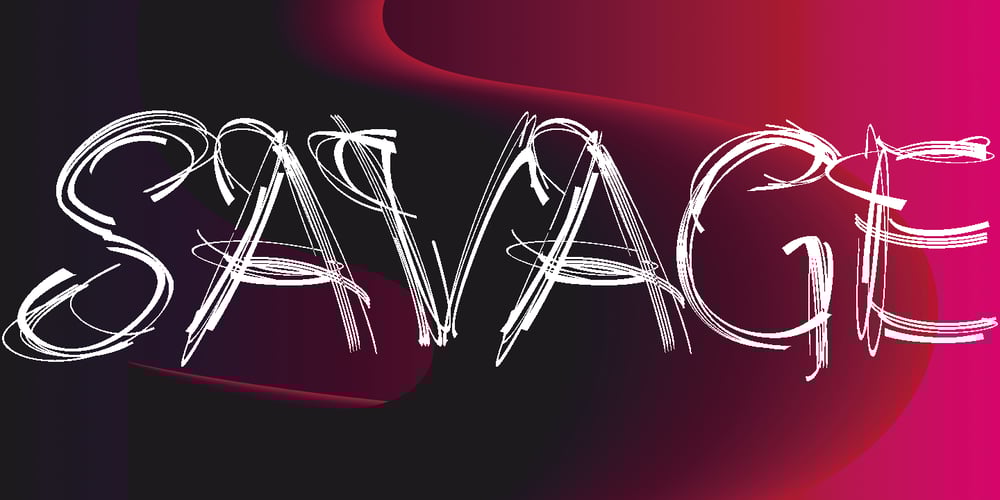
Savage Initials
Savage Initials font
Savage Initials Font Family was designed by Gert Wiescher and published by Wiescher Design. Savage Initials contains 1 styles and family package options. Savage Initials are just that: wild, spontaneus capital letters that are meant to be extraordinary embellishments. Your wild designer, Gert Wiescher